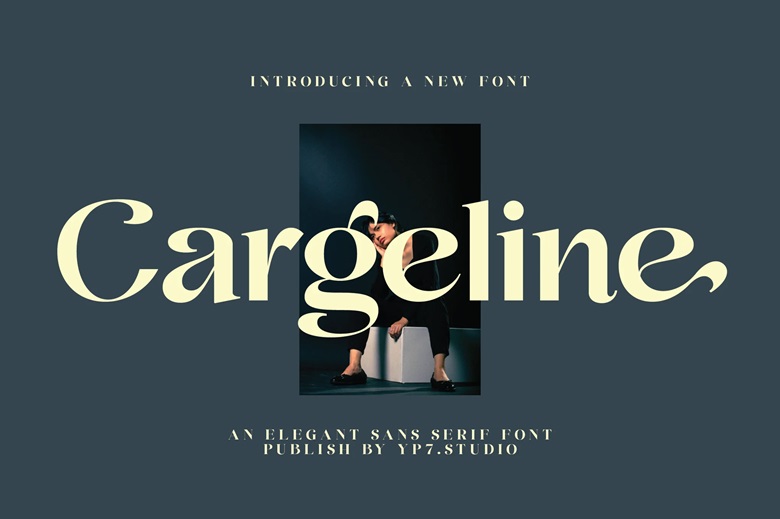
Cargeline Font
Cargeline a bold statement with our latest sans-serif font. This font is bound to make people look and make an impression because of its sharp lines and modernity. Best in headlines, logos, and any other design that requires consideration. It is practical and also attractive and so it can be used on various design works.
Cargeline Sans Serif Font